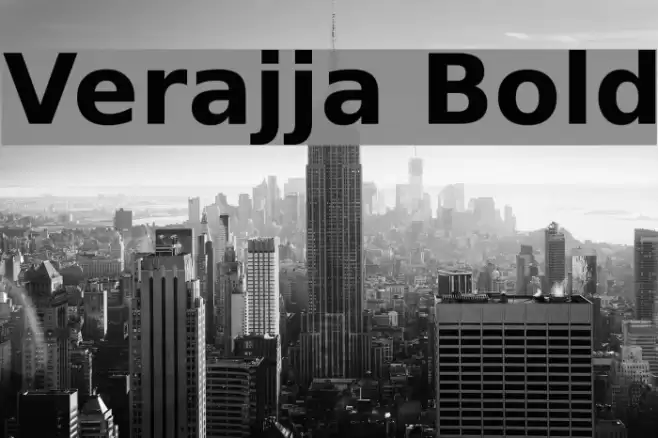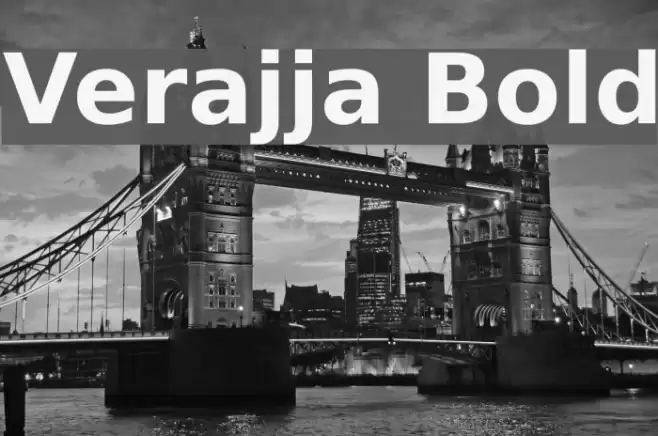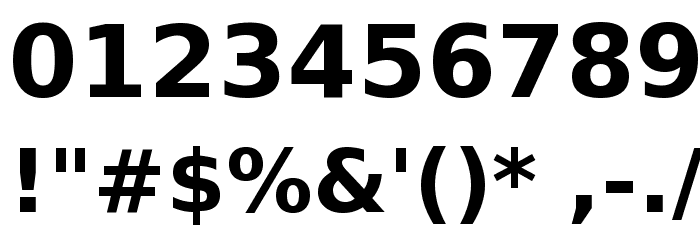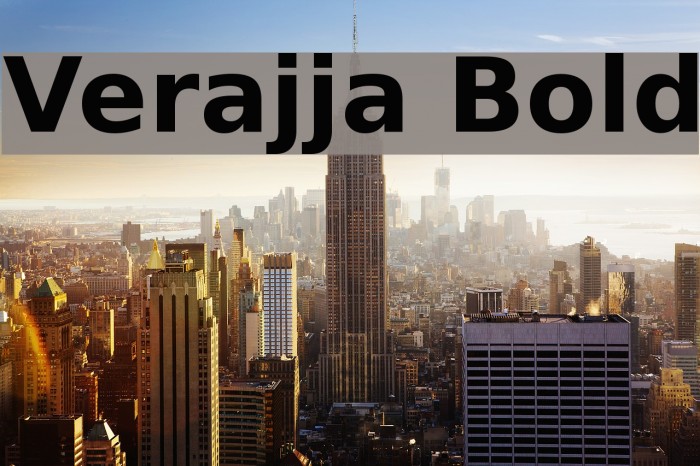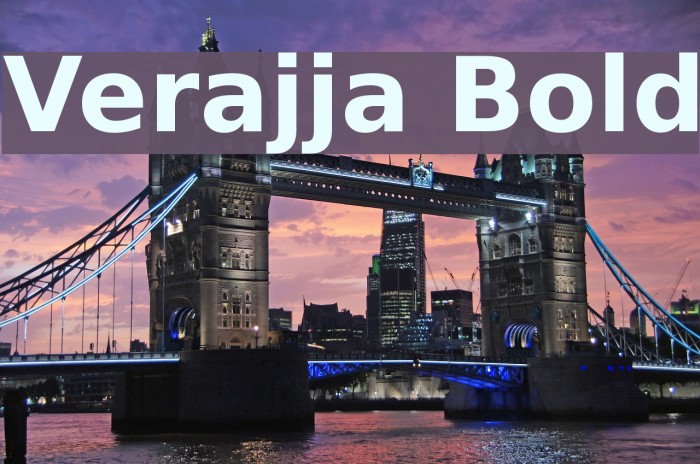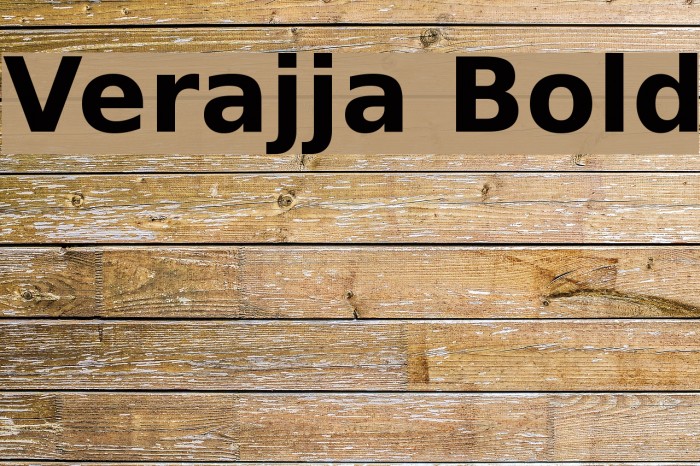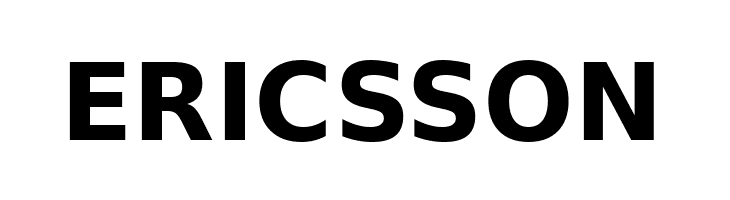
Verajja Bold Font
Verajja Bold Description
This typeface features bold, clean lines with a modern and robust appearance. The characters are well-defined with a strong presence, making them highly legible. The uppercase and lowercase letters maintain a consistent weight, providing a uniform look across all characters. The numerals are equally bold, ensuring clarity and readability. Special characters are designed to match the overall boldness, making them stand out effectively. This font is suitable for various applications where a strong and impactful visual is required.
A bold, modern typeface with clean lines and strong legibility from Uncategorized fonts.
- Proposed Projects: Ideal for branding, advertising, headlines, posters, and any project requiring a bold statement.